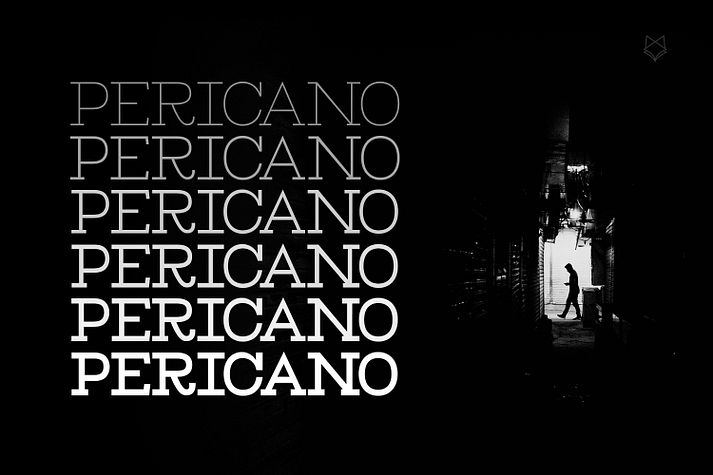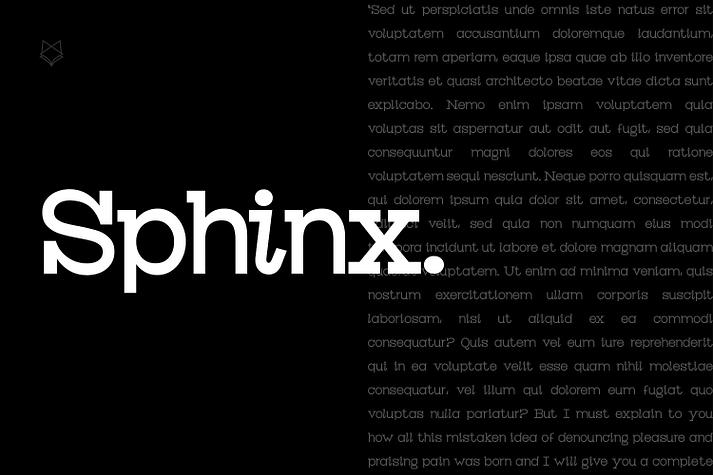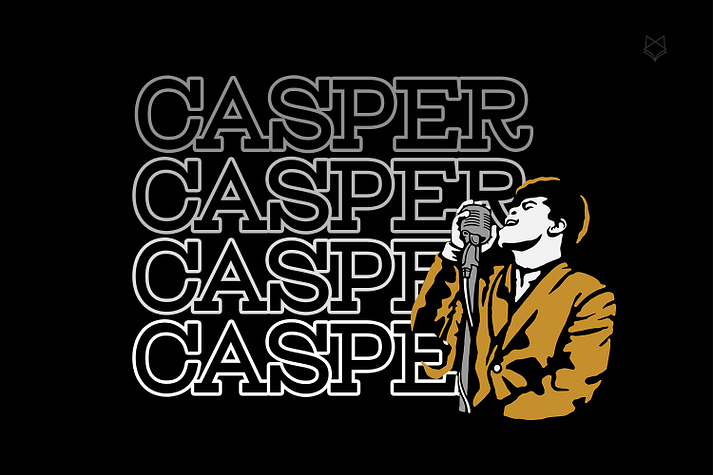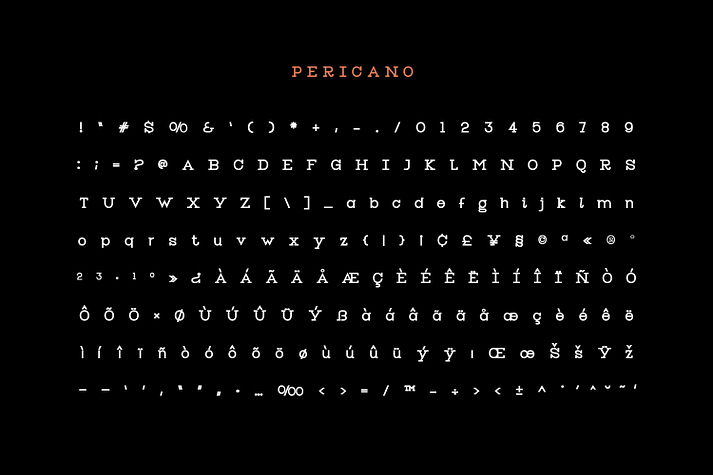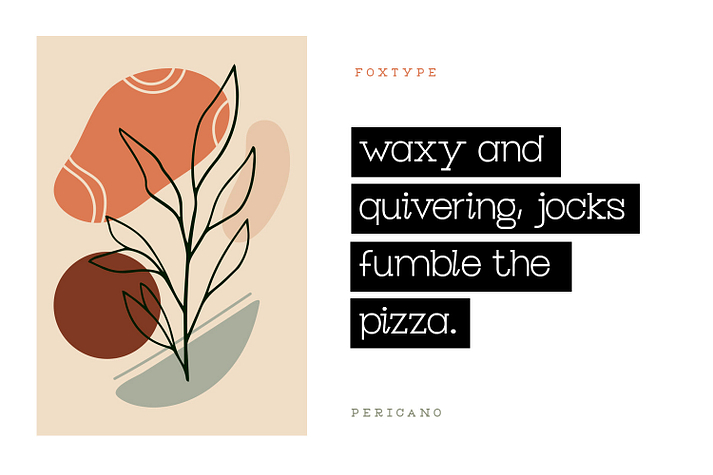
Pericano Display
Pericano Display is a slab serif font family. This typeface has six styles and was published by Foxtype.
Pericano Display is a Brand New Elegant Slab Serif Typeface with a powerful font family. It has a dependable and uncompromising style, with controlled letterforms and modern touches. It looks amazing in logos, magazines, and movies. Pericano Font would be perfect for branding, headlines, Captions, paragraphs, and posters. The various weights allow you to experiment with a wide range of applications. It’s created to make an impression without sacrificing its beauty and readability. It’s shown a clean, minimalist, warmth, quirky, yet still purposed to be versatile
The Typeface includes Six Weights - Thin, ExtraLight, Light, Regular, Medium, and SemiBold.
• Numerals and extended punctuation (200+ Glyphs).
• Expert kerning and quality crafting.
Foundry Foxtype